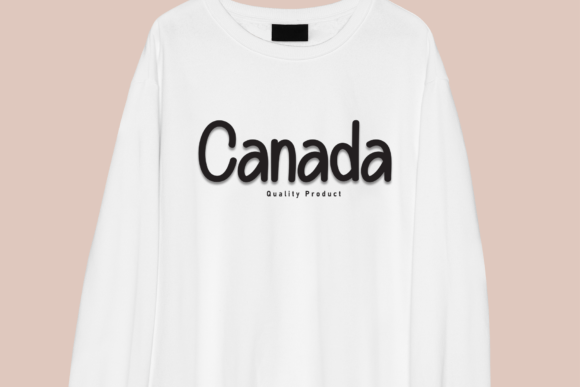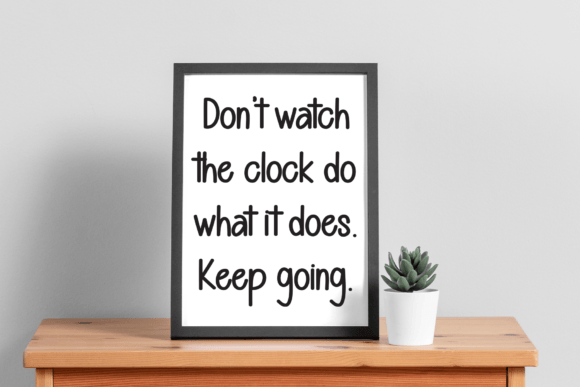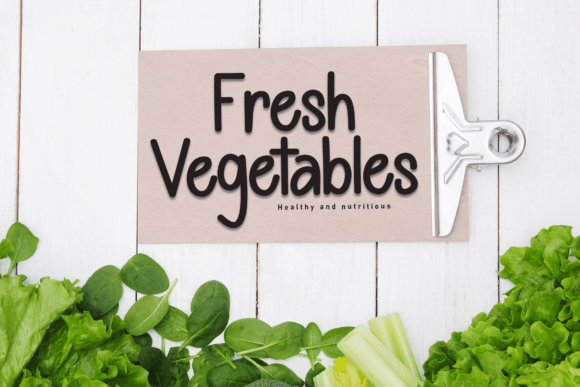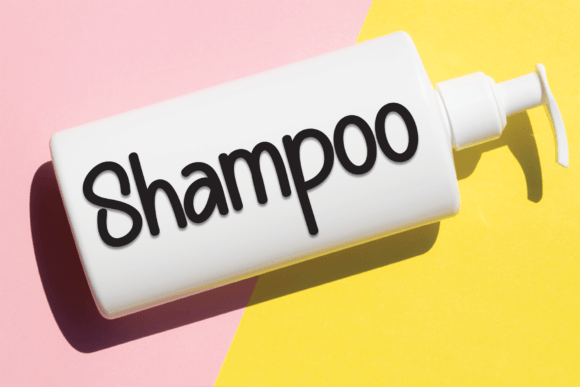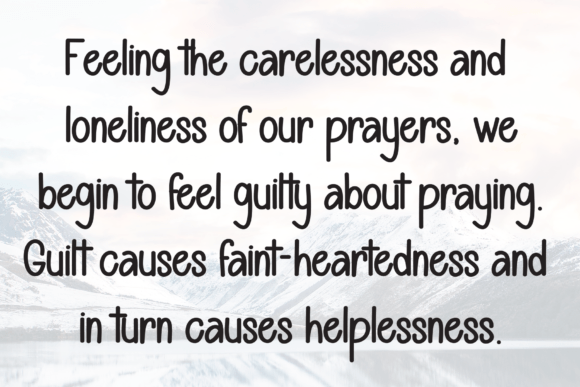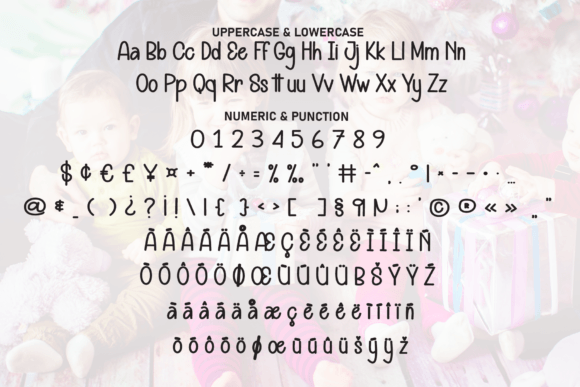
Introducing Chilldish Font: The Sweetest Addition to Your Design Toolkit
Have you ever been in the middle of a design project, and suddenly, you just can’t seem to find the right font? I recall a particularly frustrating moment when I was working on a wedding invitation project. My client wanted something that exuded warmth, playfulness, and a touch of whimsy. I scoured the internet, tried out countless fonts, but nothing seemed quite right. That was until I stumbled upon Chilldish Font. This delightfully charming handwritten display font has been a game-changer for me, and I’m excited to share its sweetness with you! 🍰
A Personal Review: What I Love About Chilldish Font
So, what makes Chilldish Font so special? Here are a few things that I absolutely adore:
• Authentic and Friendly Allure: Chilldish Font has an undeniably genuine and approachable vibe that makes it perfect for designs that require a personal touch.
• Playful Twist: This font adds a fun and lively spin to any design, making it ideal for projects that need a bit of whimsy.
• 💕 Captivating Charm: Chilldish Font has a certain charm that can instantly elevate your designs and make them more engaging.
While Chilldish Font is undoubtedly a fantastic addition to any design toolkit, there are a few minor quirks to be aware of:
• ⚠️ Limited Use in Small Sizes: Due to its intricate details and playful nature, Chilldish Font may not be the best choice for small font sizes or body text.
• 🤔 Occasional Kerning Issues: As with any font, you might encounter some kerning issues, especially when using it in combination with other fonts.
Chilldish Font was crafted with love and care by a talented designer who aimed to create a font that would bring joy and warmth to everyday designs. Inspired by the beauty of handwritten letters and the playfulness of modern typography, Chilldish Font was born. Its unique charm and character make it perfect for designs that require a personal touch.
What makes Chilldish Font unique? Chilldish Font boasts an authentic, friendly allure and a captivating charm that sets it apart from other fonts.
Is Chilldish Font suitable for body text? While possible, Chilldish Font is best suited for display text or headings due to its intricate details and playful nature.
Chilldish Font has undoubtedly become a staple in my design toolkit, and I hope it brings the same level of joy and creativity to your projects. With its captivating charm, playful twist, and authentic allure, this delightful font is sure to make your designs shine!